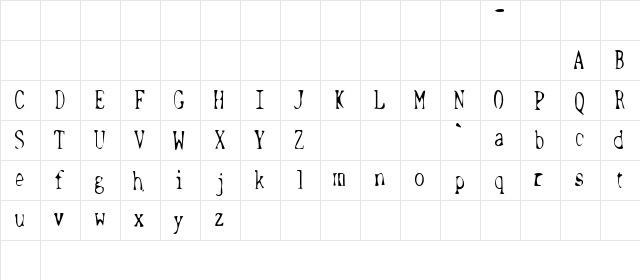
Territorial Enterprise Demo Regular
Design Context for Territorial Enterprise Demo Typeface
Territorial Enterprise Demo takes a measured approach to typography — its balanced proportions and neutral character make it a reliable workhorse for both digital and print work.